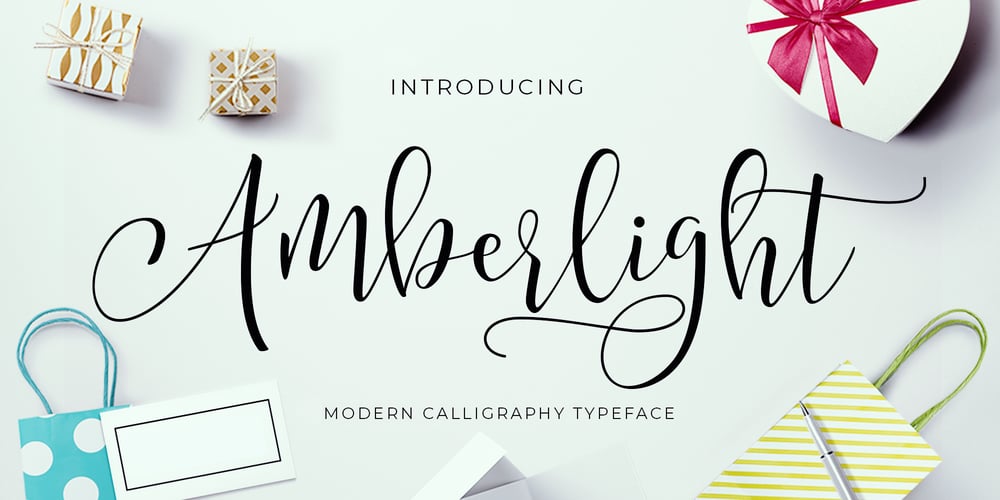
Amberlight Font Family was designed by Hermansyah and published by Get Studio. Amberlight contains 1 styles and family package options. Introducing Amberlight Script – a new fresh & modern script with a sweet calligraphy style, decorative characters, and a dancing baseline! So beautiful on invitations like greeting cards, branding materials, business cards, quotes, posters, and more!